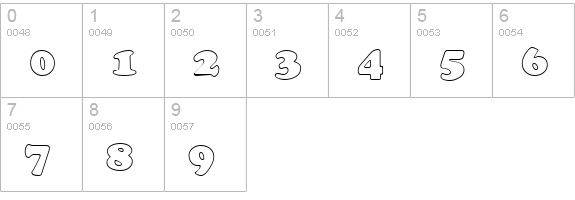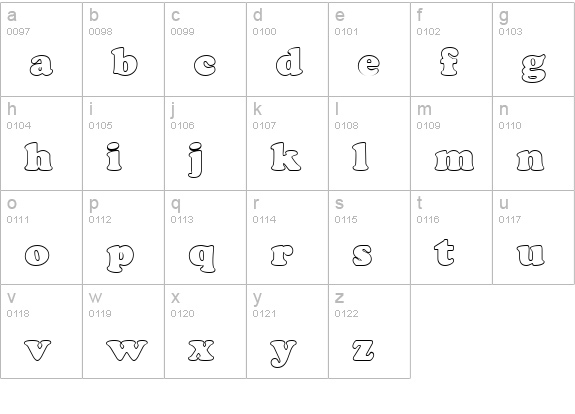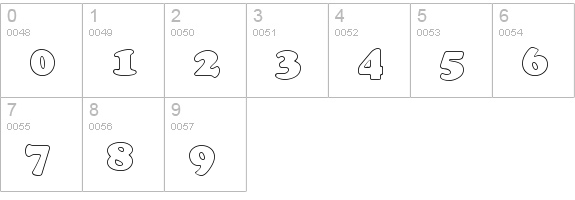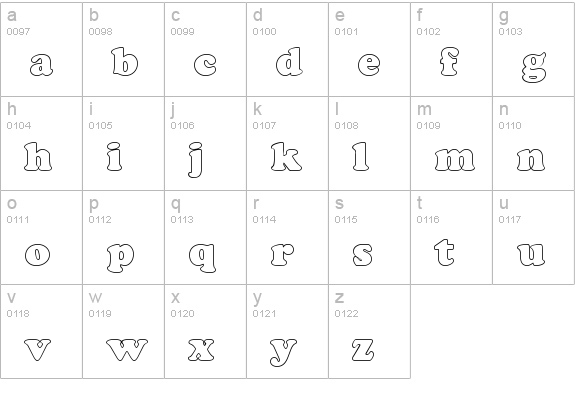
CookieHollow Regular Font Details
CookieHollow Regular is the standard, neutral variant in the CookieHollow typeface family \xE2\x80\x94 well suited to general body text, paragraphs, and standard typographic work.
CookieHollow Regular is a charming and whimsical font that is perfect for adding a touch of playfulness to any design project. With its unique hollow style, this font exudes a sense of fun and creativity. Whether you're working on a poster, greeting card, or packaging design, CookieHollow Regular will surely make your text stand out. The best part? CookieHollow Regular is available for free download at FontsMarket.com. This means you can easily access this delightful font and incorporate it into your projects without any cost. So why wait? Add a fun and quirky twist to your designs with CookieHollow Regular today!